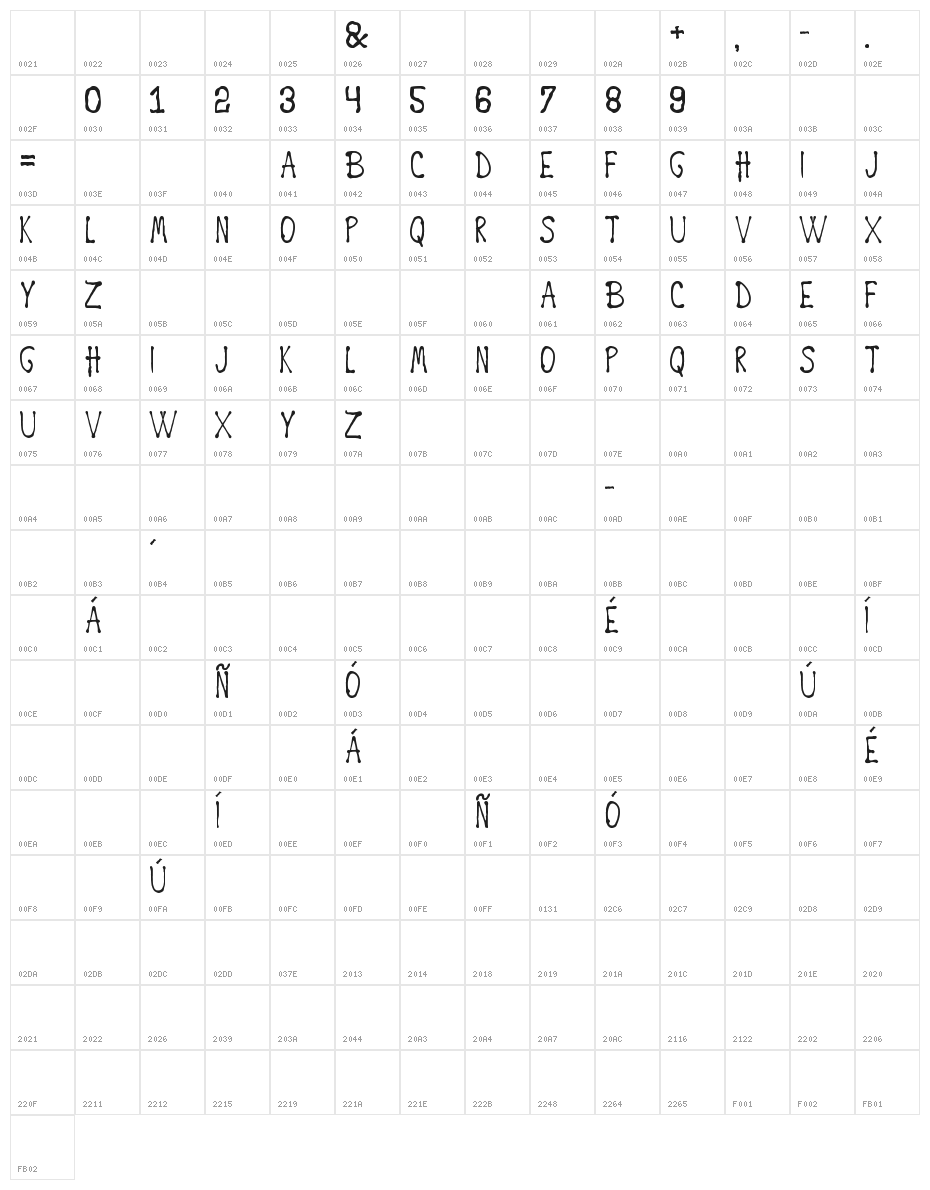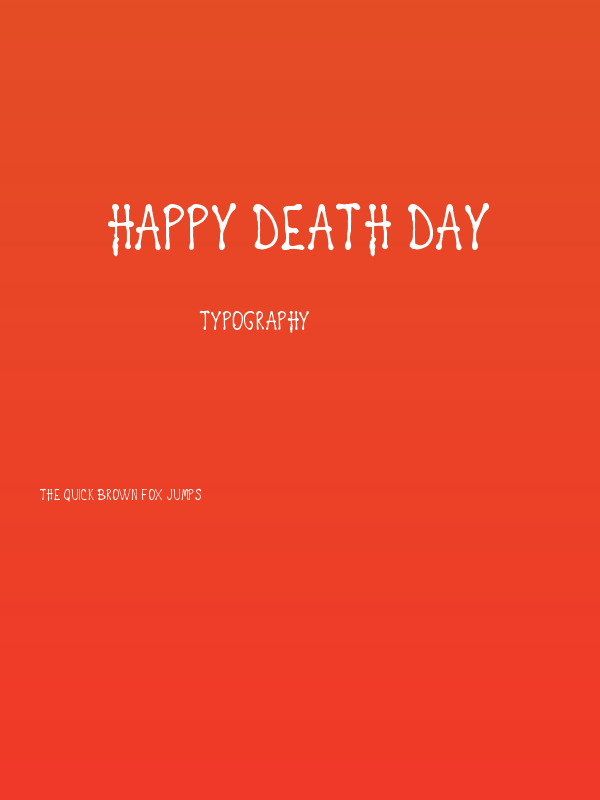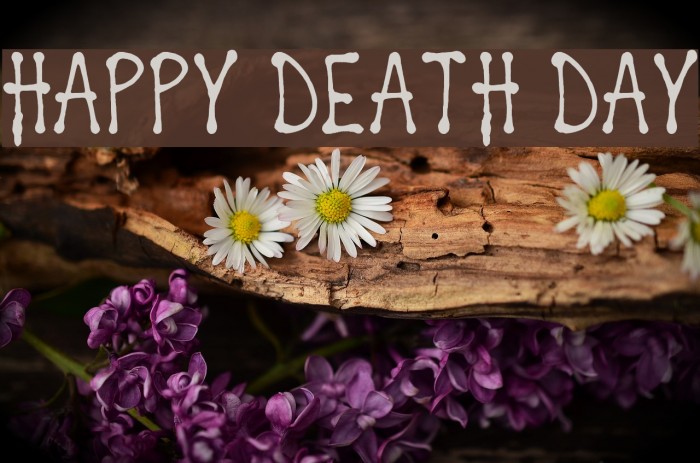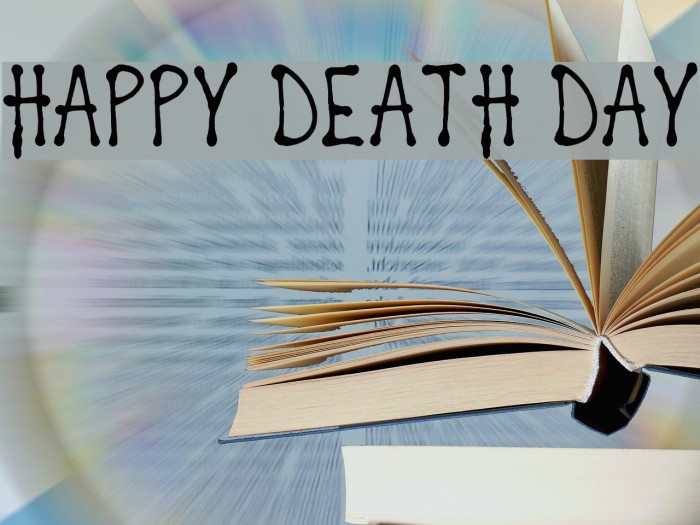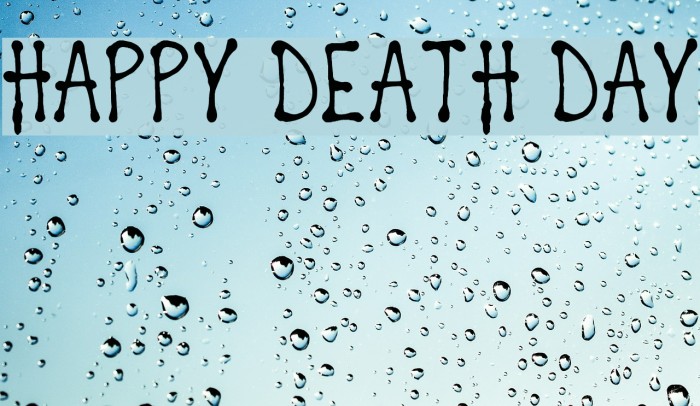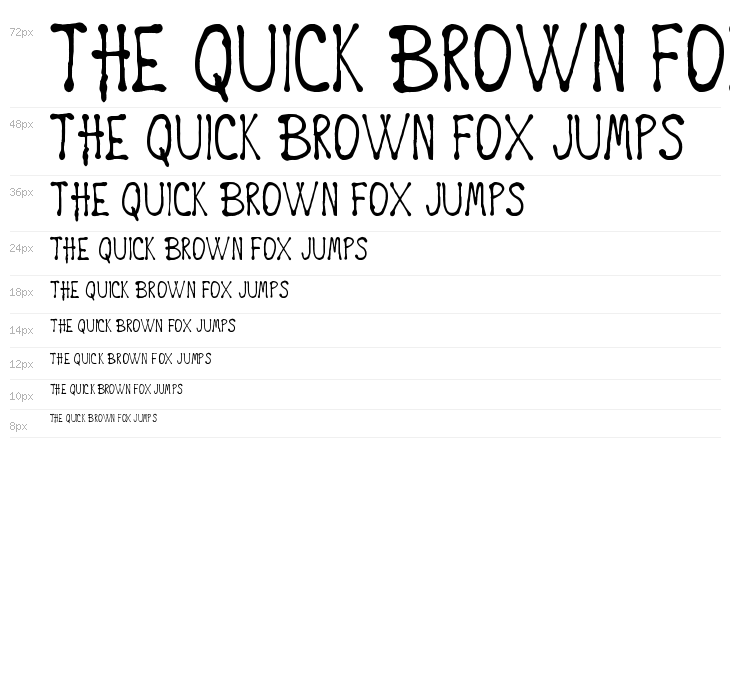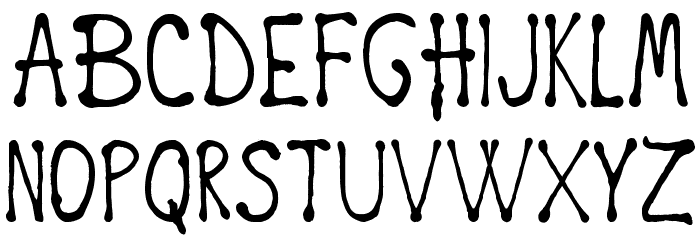
Happy Death Day Font
Happy Death Day Description
This font features a playful and slightly eerie style, with characters that have a hand-drawn appearance. The letters are bold and slightly irregular, giving them a quirky and unique look. The strokes are uneven, adding to the font's whimsical and informal feel. The uppercase and lowercase letters maintain a consistent style, while the numbers and special characters complement the overall design. The font's distinctiveness makes it suitable for creative and unconventional projects, where a touch of personality is desired.
| Proposed Projects | Ideal for Halloween-themed designs, children's book covers, party invitations, and creative branding. |